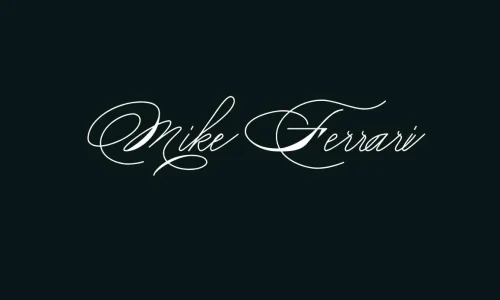
Andrea Font is a calligraphy typeface designed by Muhammad Akbar. The Font was released in 2001 and has since been used by various publications. This amazing typeface has a very charming and human writing appearance, which also comprised uppercase & lowercase letters, punctuations, numerals, and swashes.
The Font has a unique design that makes it stand out among other typefaces. This makes the font very legible, even in small sizes. You can give your designs a marvelous touch then try to pair heritage font and make your designs astonishing.
It can be used in Word software to make attractive resumes or any other formal document. You can also try bohemian font a Script typeface with the same matching appearance and has a pairing feature with another bunch of typefaces as well.